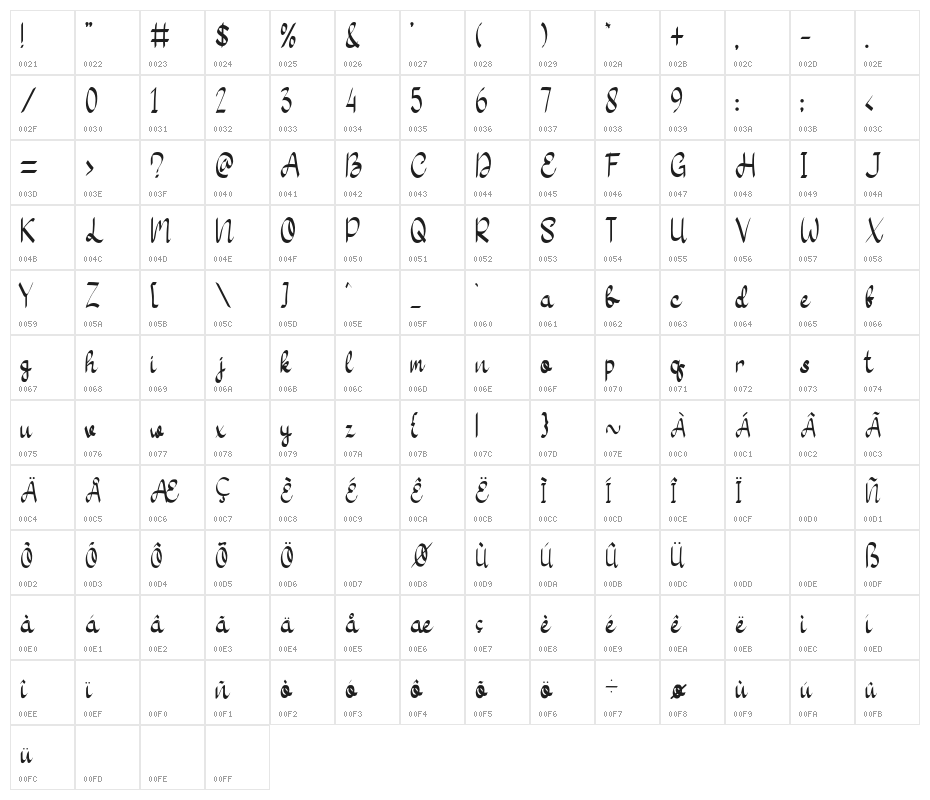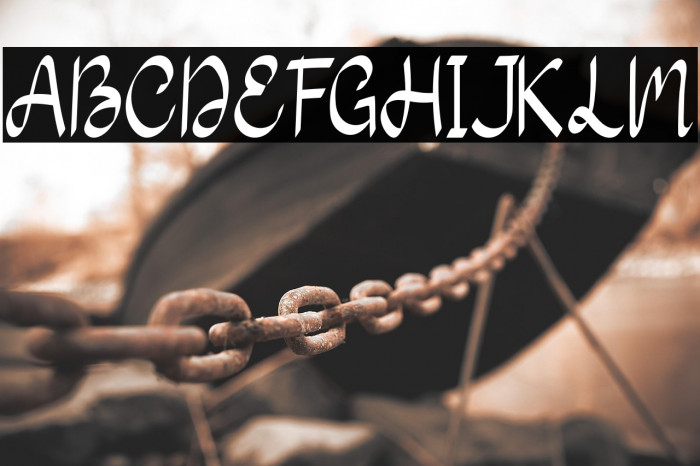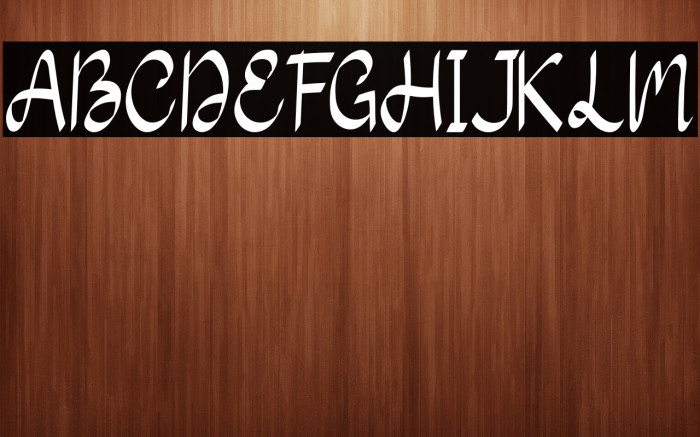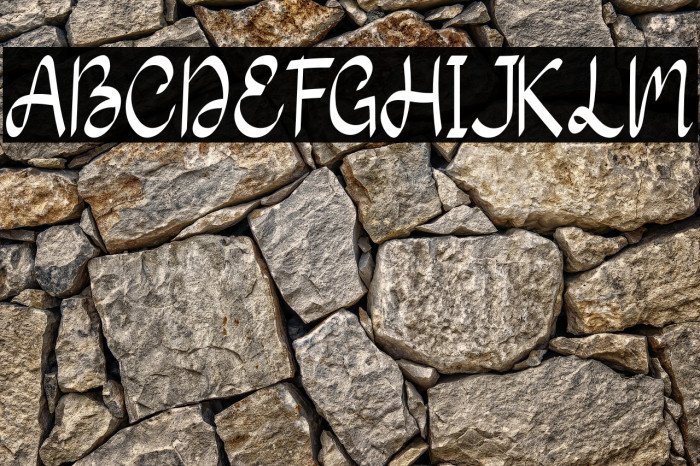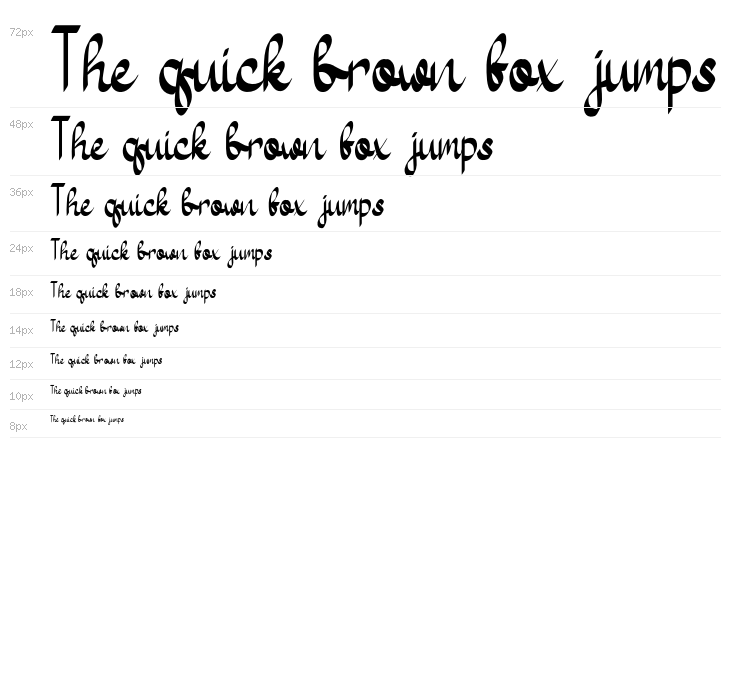
Sunday Fun Font
Sunday Fun Description
This font features a playful and dynamic script style with a handwritten appearance. The letters are slightly slanted, giving a sense of movement and fluidity. The uppercase characters are bold and expressive, while the lowercase letters maintain a consistent flow with elegant curves. The numbers are distinct and maintain the same lively style as the letters. Special characters are creatively integrated, enhancing the font's whimsical nature. Overall, this font exudes a sense of fun and creativity, making it suitable for projects that require a personal and informal touch.
| Use Case | Logos, Headlines, Invitations |
| Proposed Projects | Ideal for greeting cards, invitations, playful branding, and creative posters. |